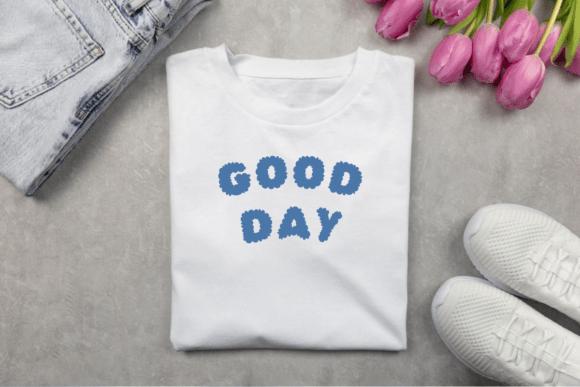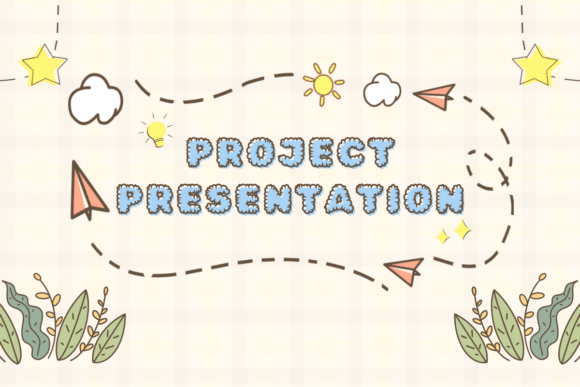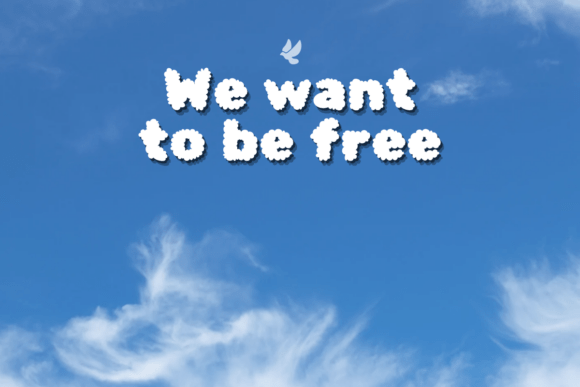
Introduction to Boop Font
Boop is a display font.
You can use it for taking notes, writing a diary, or making greeting cards However, you can still use it for other designs, such as banners, content, mugs, cards, shirts, stationery, social media posts, and more.